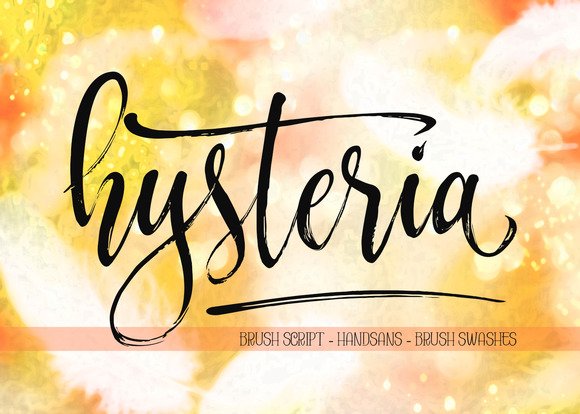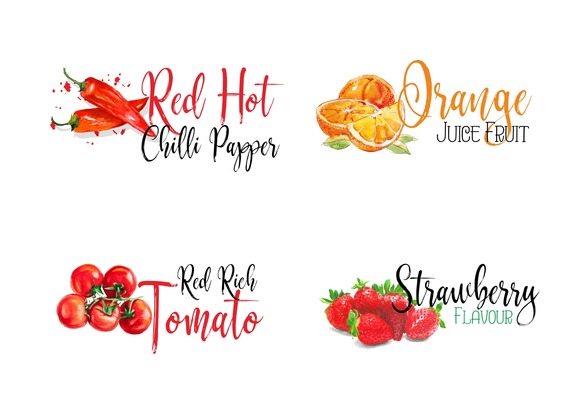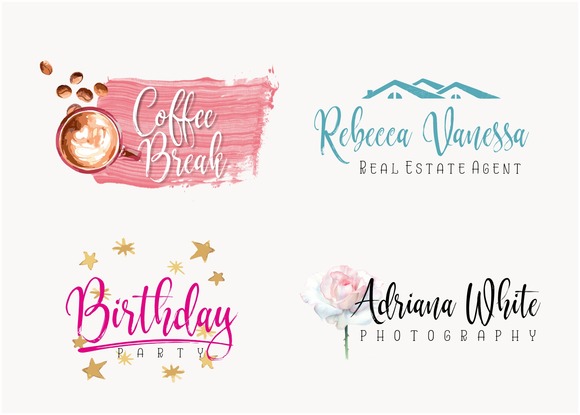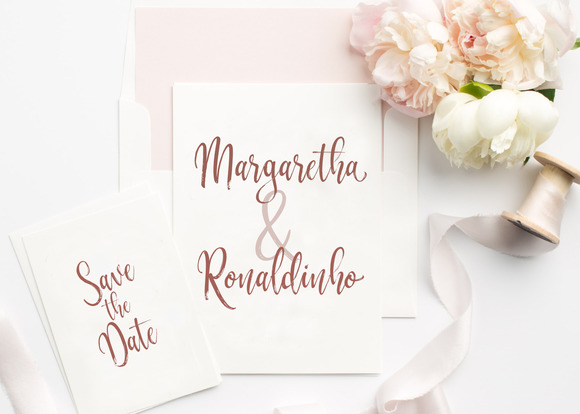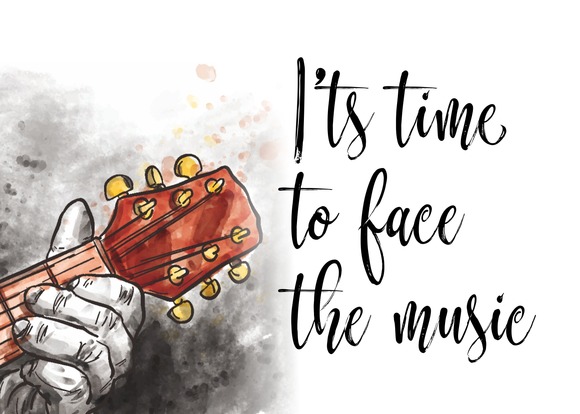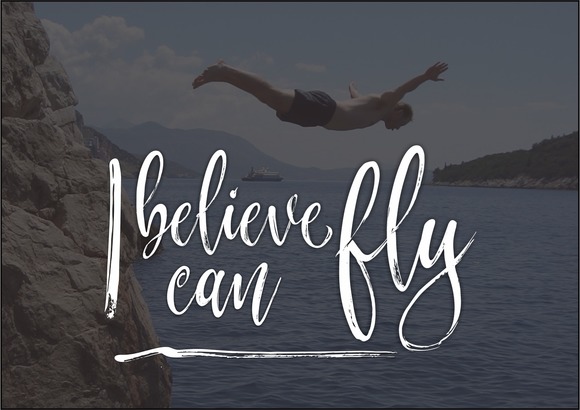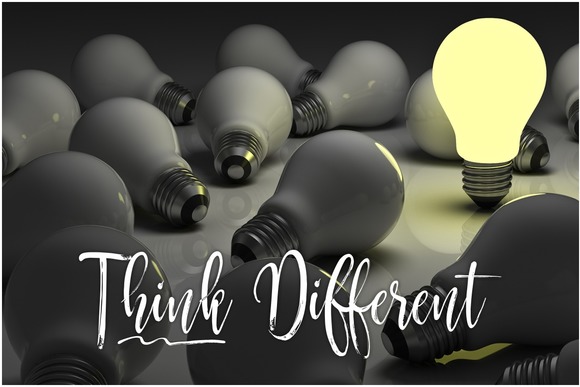
The Elegance of Handwritten Scripts: Unleashing the Power of Hysteria Font
Have you ever been stuck in front of a blank canvas, searching for the perfect font to bring your design to life? You know the feeling – it’s like your creativity is screaming to be let loose, but the right words just won’t come. For designers like you, finding that elusive perfect font can be a game-changer.
Enter Hysteria Brush, a beautiful brush script that exudes elegance and sophistication. Designed to add a touch of handwritten charm to any design, Hysteria Font is the perfect solution for those seeking to create visually stunning work. Whether you’re a graphic designer, artist, or simply someone who appreciates the beauty of typography, this font is sure to captivate and inspire.
Hysteria Font Key Features
- Unique Characteristics: Hysteria Font features a unique blend of elegant and distressed elements, creating a captivating and eye-catching visual effect that sets it apart from other fonts.
- Font Style: The font is available in a single style, but it’s highly versatile, making it suitable for a wide range of design applications, from formal to informal, and from modern to vintage.
Hysteria Font Review
Overall, I found the Hysteria Font to be a mixed bag, with some standout features and areas where it falls short. Let’s dive in!
- The Hysteria Font has a unique and eye-catching design that’s perfect for adding a touch of whimsy to your project.
- The font’s irregular shapes and fluid lines give it a hand-drawn feel that’s both charming and professional.
- The font family includes a wide range of weights and styles, making it easy to find the perfect fit for your project.
- The Hysteria Font’s irregular design can make it difficult to read, especially in smaller sizes or at a distance.
- The font’s fluid lines can also make it challenging to pair with other fonts, as it can be hard to find a matching style.
- The font family could benefit from additional international character support, making it more versatile for global projects.
In conclusion, the Hysteria Font is a great choice for projects that need a unique and attention-grabbing look. However, it may not be the best fit for projects that require clear readability or versatility in font pairing. With some tweaks and additions, I think the Hysteria Font has the potential to be a top contender in the font world.
Getting the Most Out of Hysteria Font
For the best results, use the Hysteria font in bold or italic styles to add emphasis to your text. Experiment with different font sizes and colors to create visual interest.
The Hysteria font is ideal for creating eye-catching headlines, titles, and posters. It’s also great for adding a touch of elegance to invitations, wedding stationery, and other formal designs.